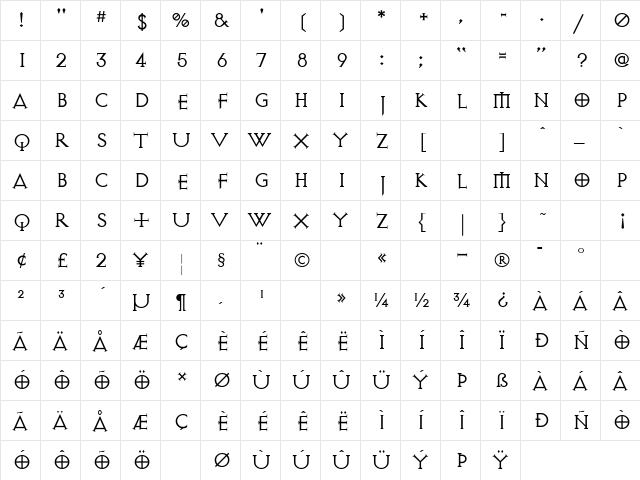
Diablo Light Font Preview
Diablo Light
Diablo Light Font Details
Design Context for Diablo Typeface
Diablo takes a measured approach to typography — its balanced proportions and neutral character make it a reliable workhorse for both digital and print work. The delicate stroke weight brings airiness and refinement to layouts.